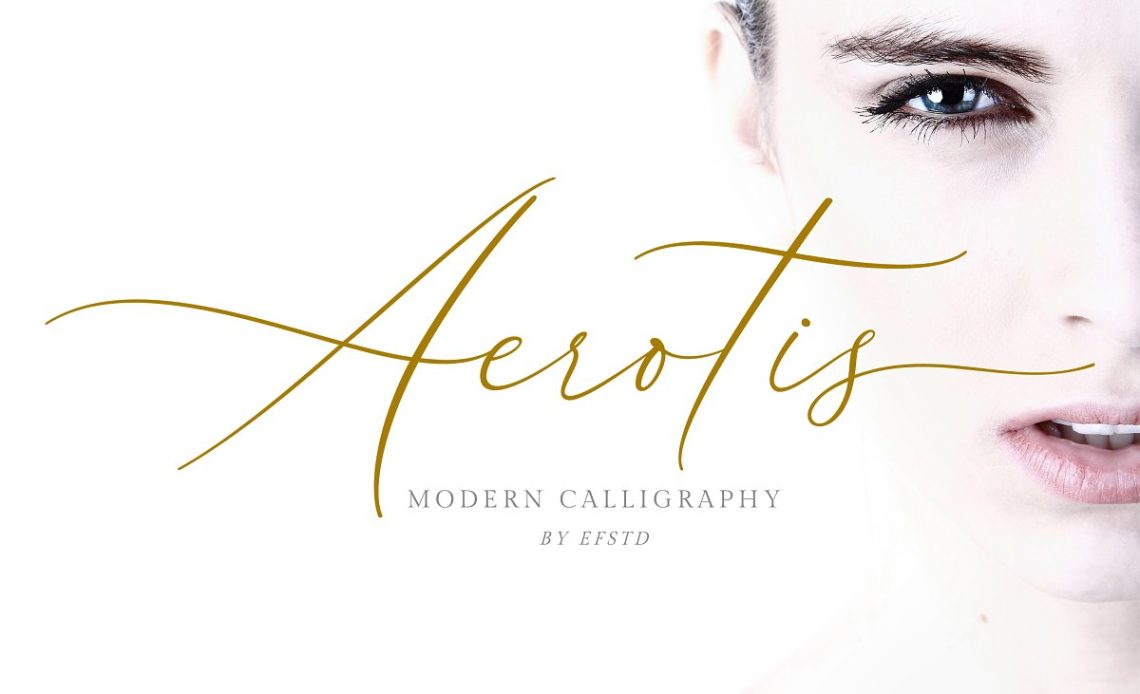
Looking for the perfect font for your wedding invitations or branding project? Look no further than Aerotis, the stunning modern calligraphy font created by Luthfi Fauzi.
With its elegant and classy design, Aerotis is the ideal choice for those seeking a font that exudes sophistication and style. Its script font family and all upper and lowercase letters make it versatile for a variety of projects.
Whether you're creating wedding invitations, designing a website, or crafting editorial designs, Aerotis has everything you need to make your project stand out. With multilingual support, punctuation, binding, and initial and final swashes, Aerotis is fully equipped for any design needs.